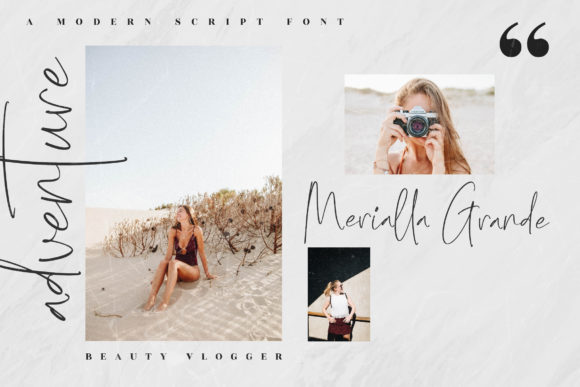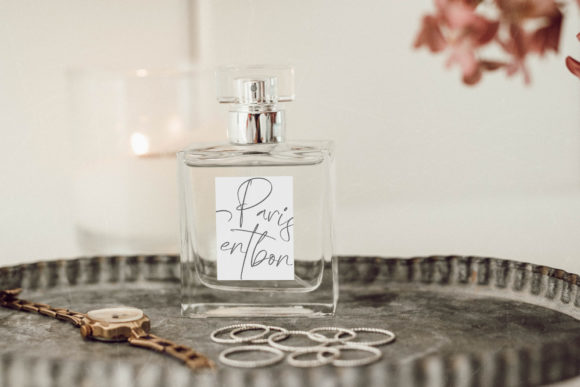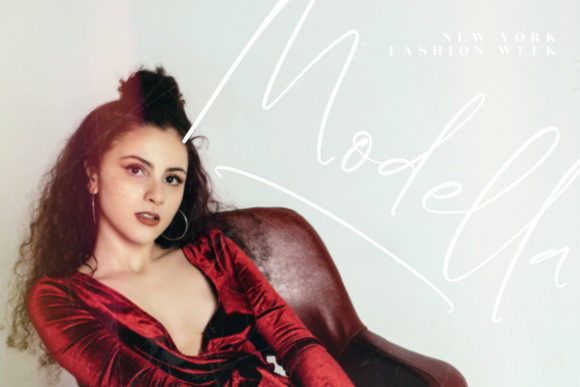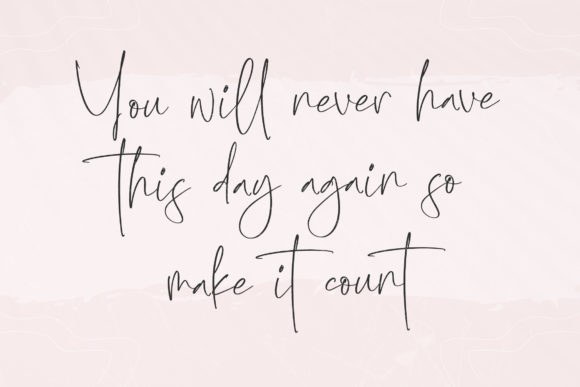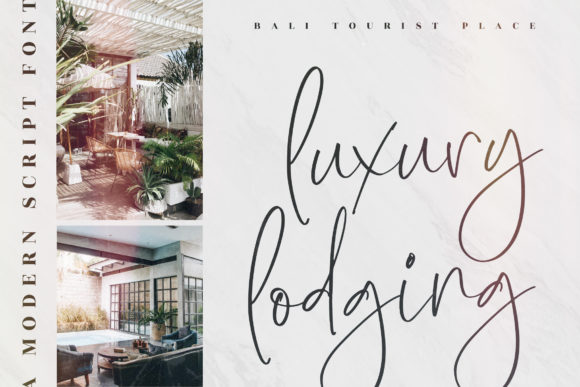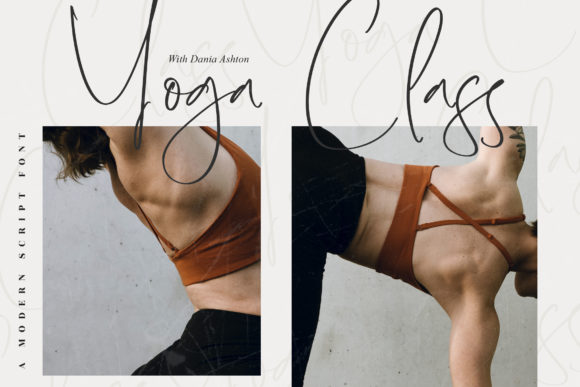
Introduction to Mothell Font
Have you ever been working on a creative project, pouring your heart and soul into every detail, only to find the perfect font to bring it all together? For designers, that elusive font can be the difference between a good design and a great one. It’s like finding the perfect melody to match your creative vision.
That’s where Mothell Font comes in – a romantic and slim script font that will make your design come alive. With every letter having a unique and beautiful touch, this font is a game-changer for any creative project. Whether you’re working on a wedding invitation, a blog post, or a social media campaign, Mothell Font is the perfect design resource to elevate your work.
Key Features of Mothell Font
- Unique, handcrafted design that features a transparent background, allowing for easy layering and customization in design projects.
- Designed to be versatile and adaptable, making it an excellent choice for various design resources, including logos, typography, and graphics.
- Perfect for designers who value creativity and originality, as Mothell Font offers a distinctive look that can elevate any design project.
Honest Review: Mothell Font
As a designer, I’m always on the lookout for high-quality design resources to elevate my creative projects. Recently, I stumbled upon the Mothell Font, and I’m excited to share my honest review with you.
- ✨ High-quality design: The Mothell Font boasts a crisp, clean design that’s perfect for a variety of creative projects.
- ✨ Transparent background: The font’s transparent background makes it easy to use on top of other design elements.
Any limitations:
- ⚠️ Limited font styles: While the Mothell Font is a great addition to any design library, it’s worth noting that it only comes in a few font styles.
- ⚠️ Not ideal for complex text: Due to its simple design, the Mothell Font may not be the best choice for complex or detailed text.
Overall, I’m impressed with the Mothell Font’s high quality and ease of use. While it may have some limitations, it’s a great free download for designers looking to add a touch of elegance to their creative projects.
Mothell Font
The Mothell Font is ideal for various creative projects, including logo designs, branding materials, and marketing collateral. Its transparent background and high-quality design make it a versatile font for any design application.